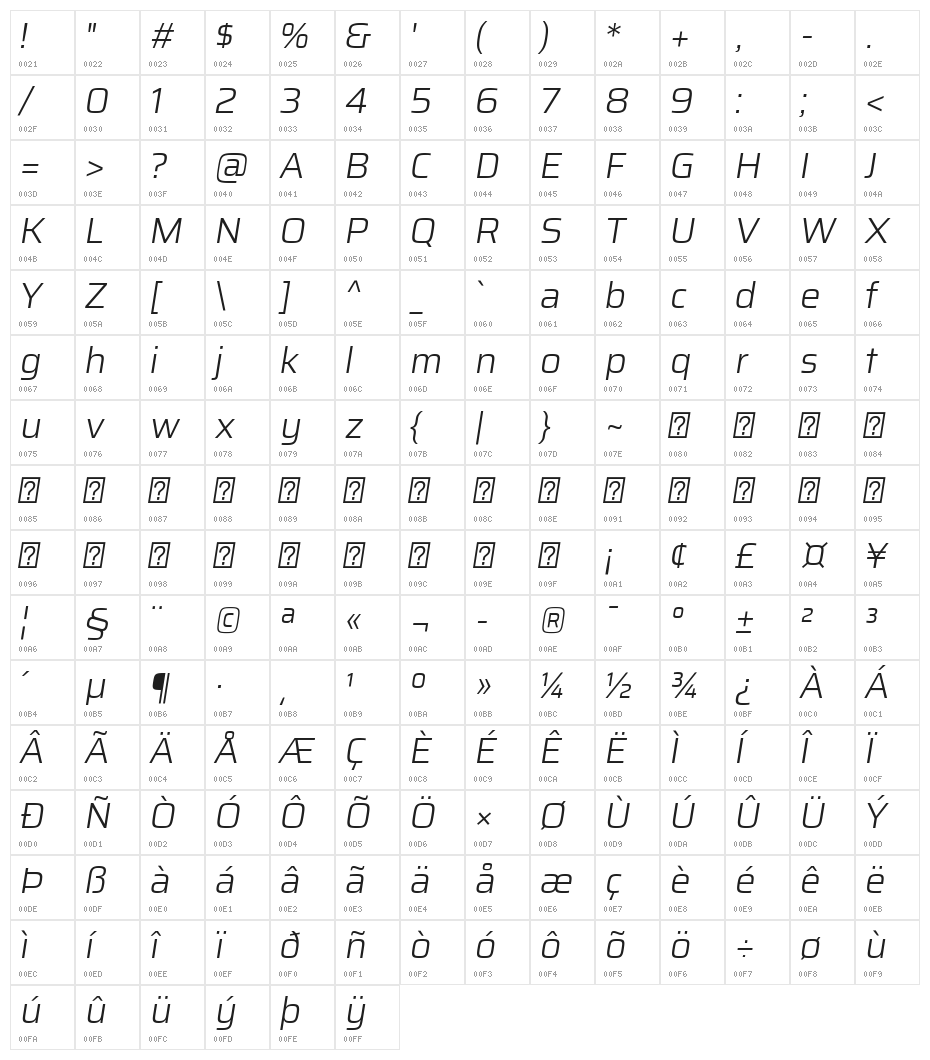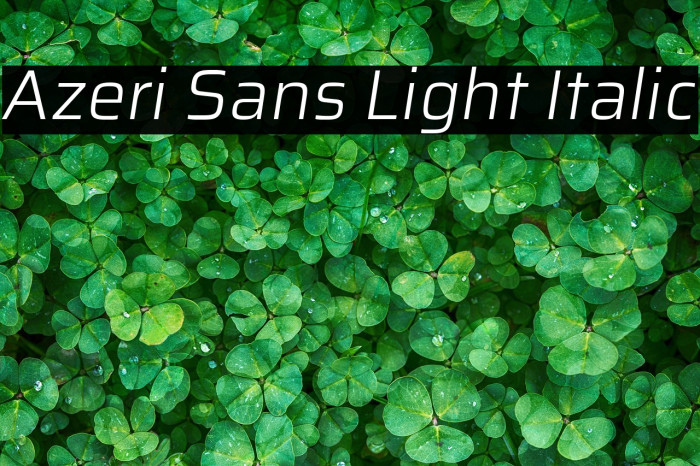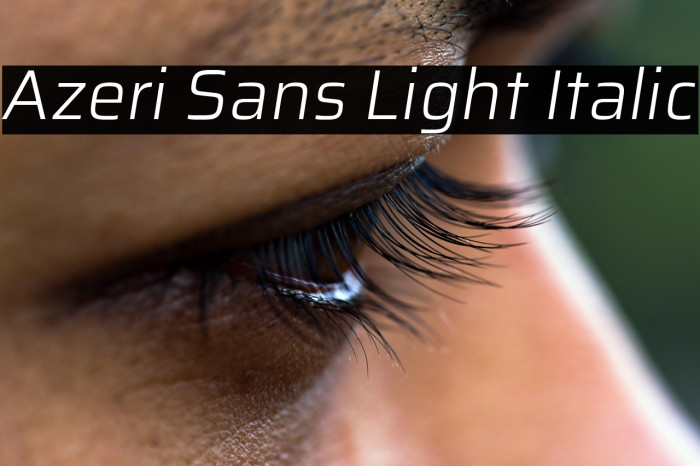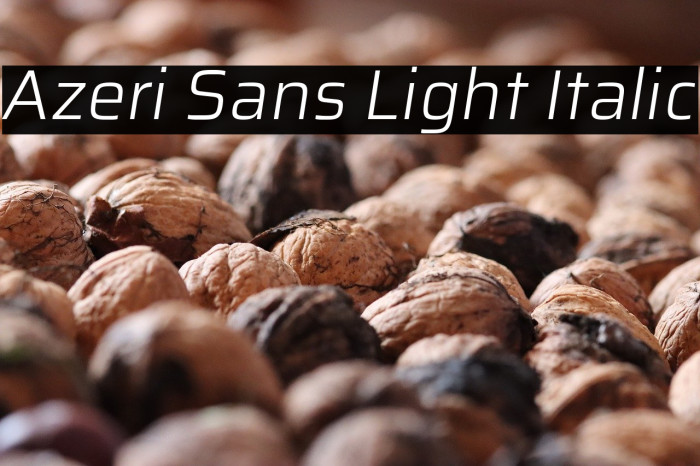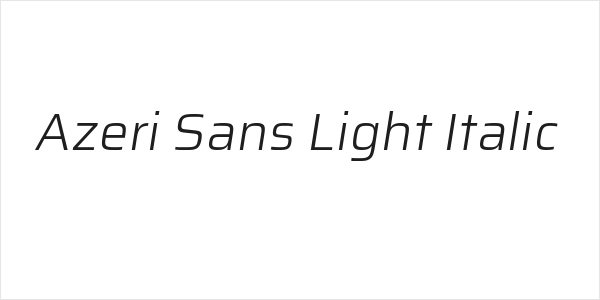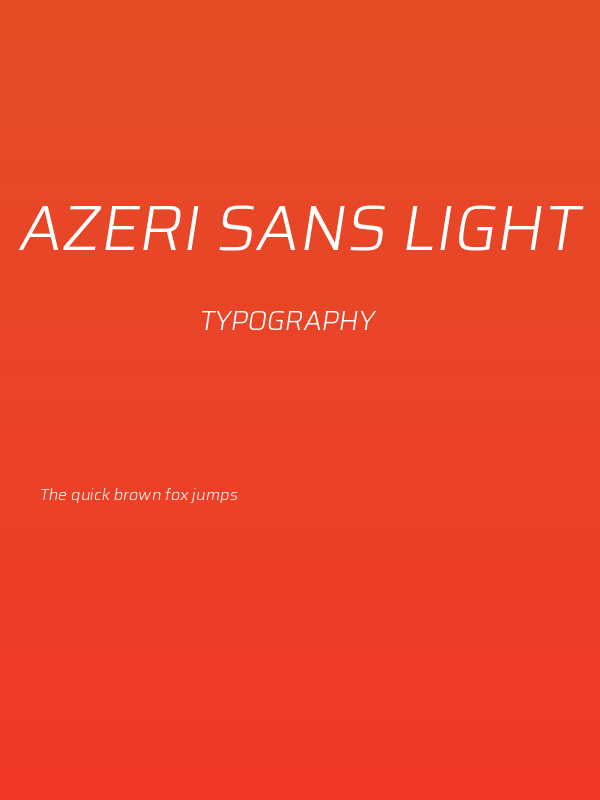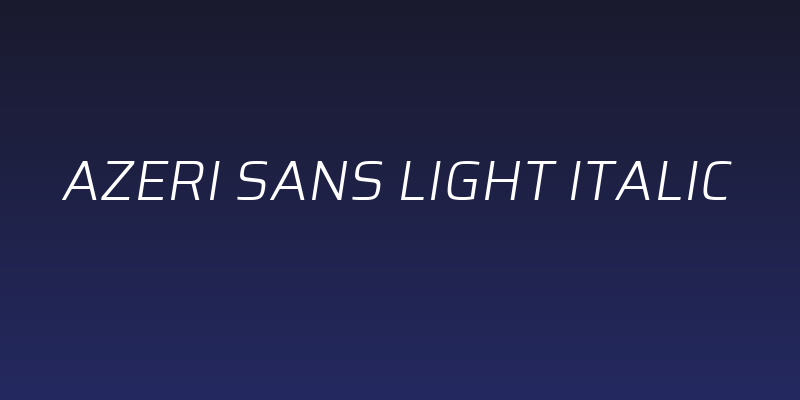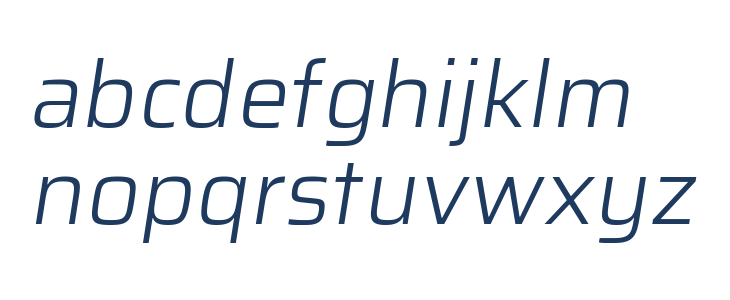
Azeri Sans Light Italic Font
Azeri Sans Light Italic Description
This font presents a sleek and modern aesthetic, characterized by its clean lines and subtle curves. The letters are slightly slanted, giving it an italic appearance that adds a sense of motion and elegance. The typeface is light, contributing to a delicate and refined look, while maintaining readability. Its sans-serif nature ensures a contemporary feel, suitable for various digital and print applications. The numerals and special characters are designed with the same attention to detail, ensuring consistency across all elements.
| Proposed Projects | Ideal for modern branding, digital interfaces, editorial design, and minimalist posters. |